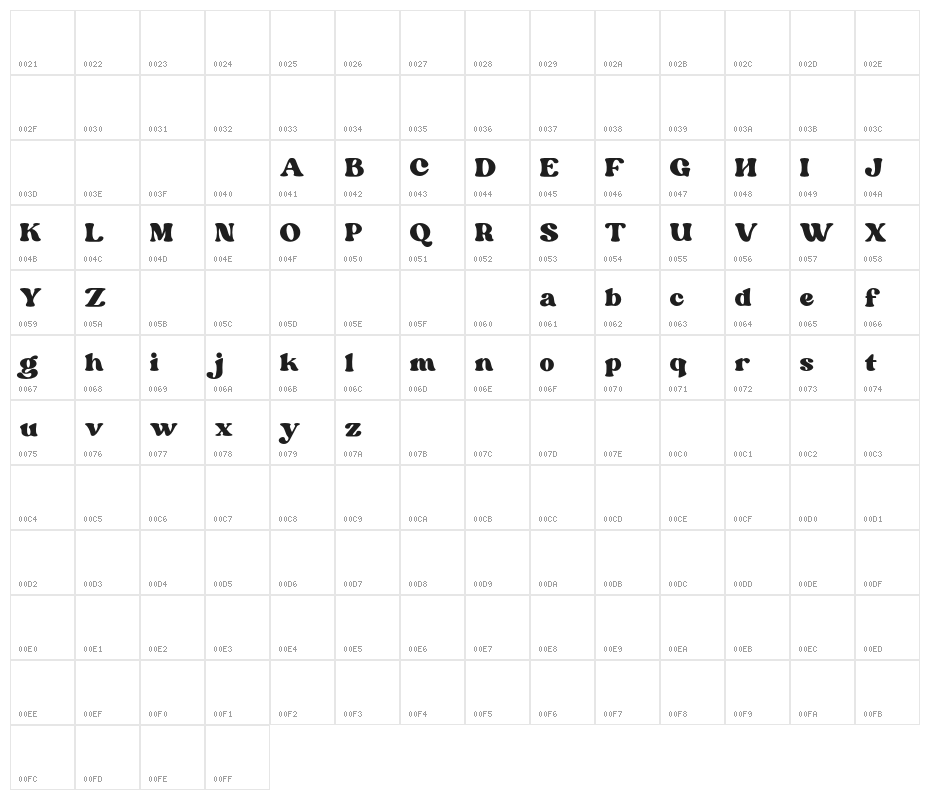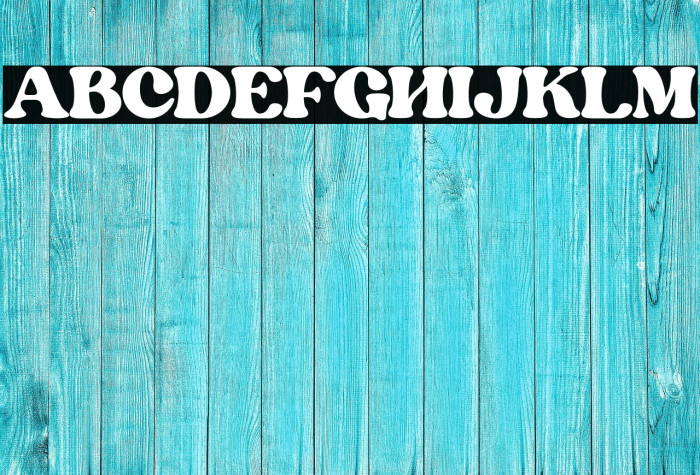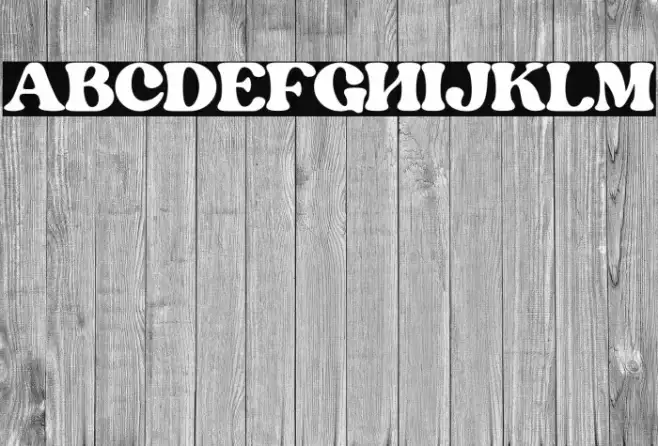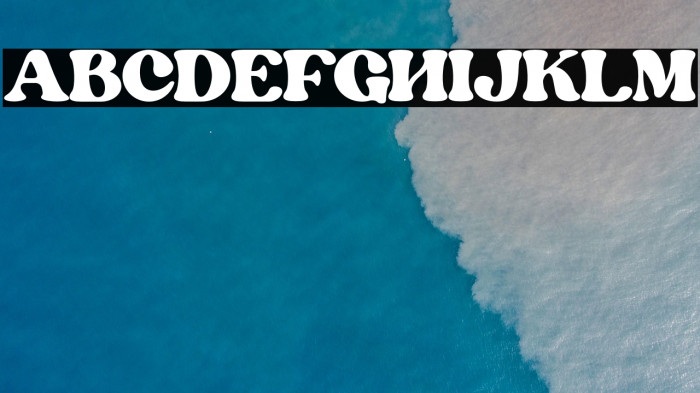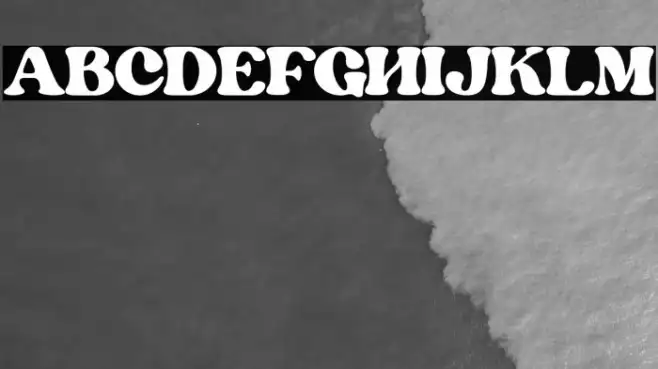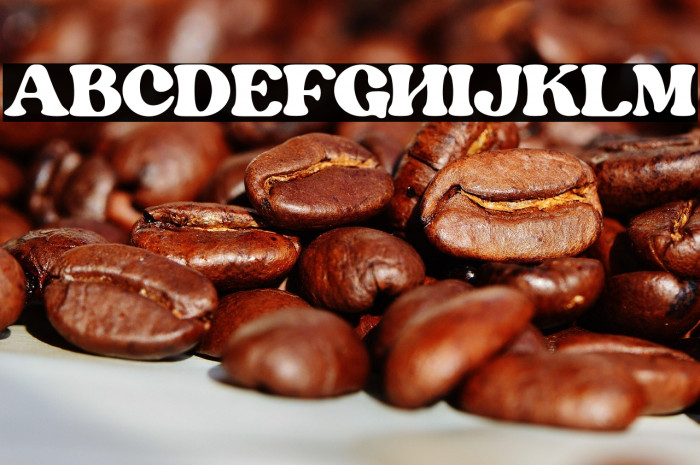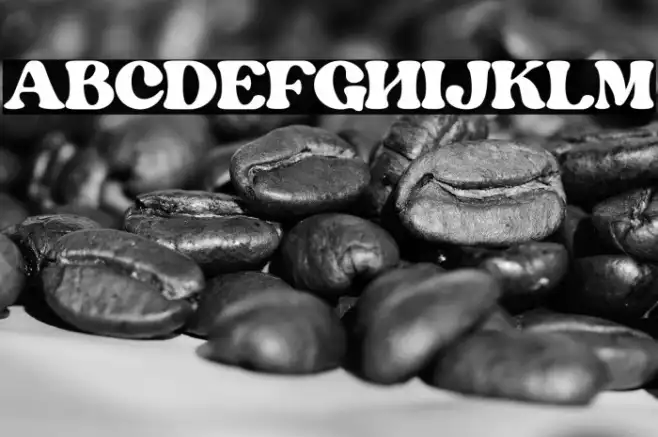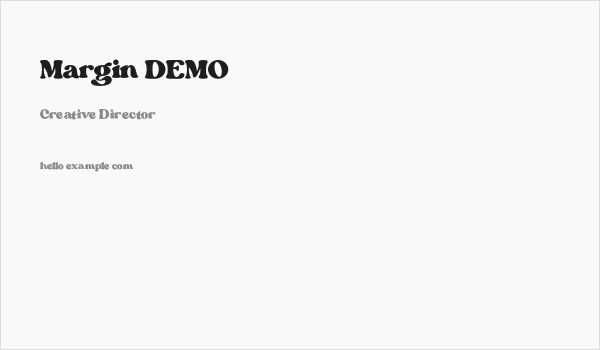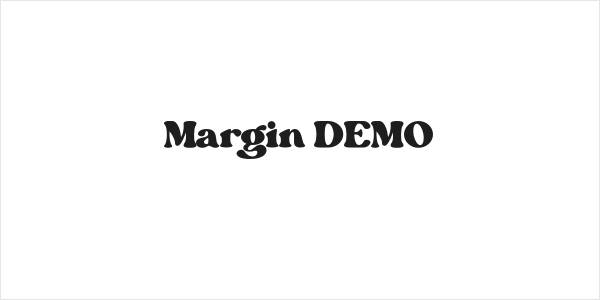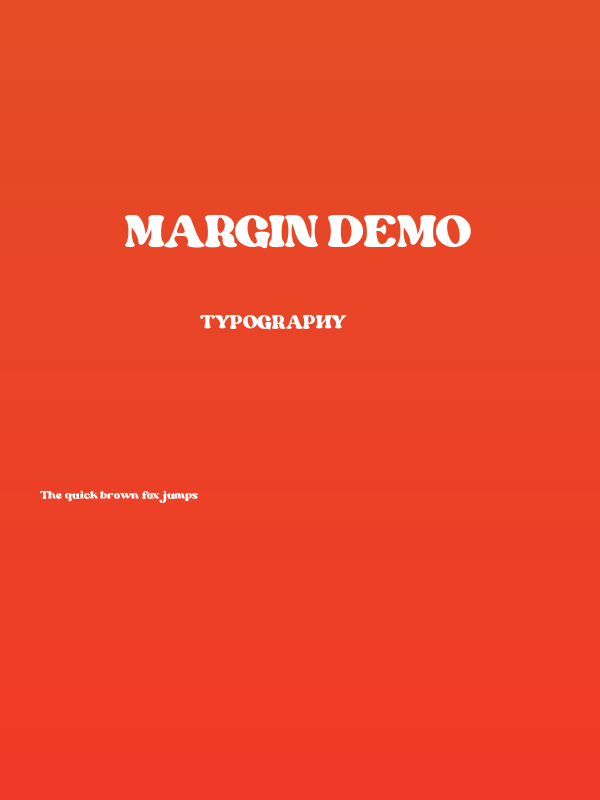
Margin DEMO Font
Margin DEMO Description
This font features bold, rounded characters with a playful and decorative style. The letters have a whimsical, almost cartoonish appearance, with thick strokes and exaggerated curves. The uppercase and lowercase letters maintain a consistent weight, providing a cohesive look. The overall design is eye-catching and unique, making it suitable for creative projects that require a fun and engaging typeface. The font's boldness ensures it stands out, while the rounded edges give it a friendly and approachable feel.
| Overall Style | Playful, Decorative |
| Proposed Projects | Ideal for children's books, playful branding, posters, and creative design projects. |